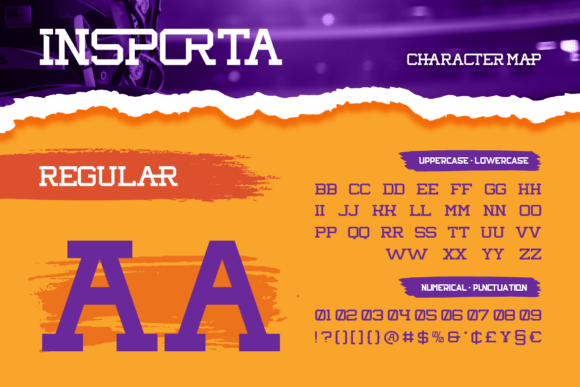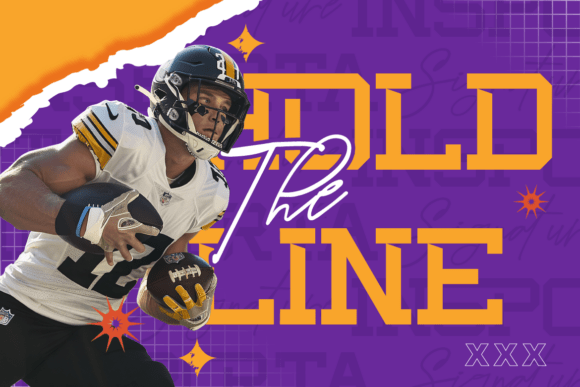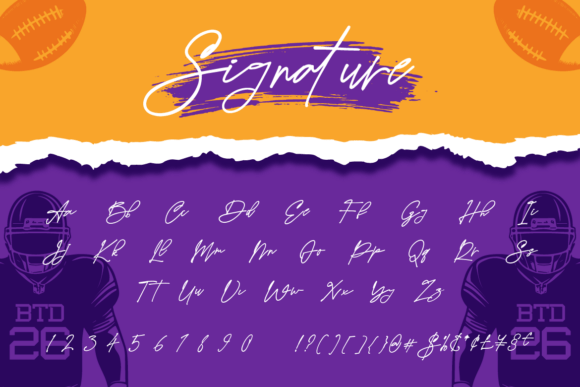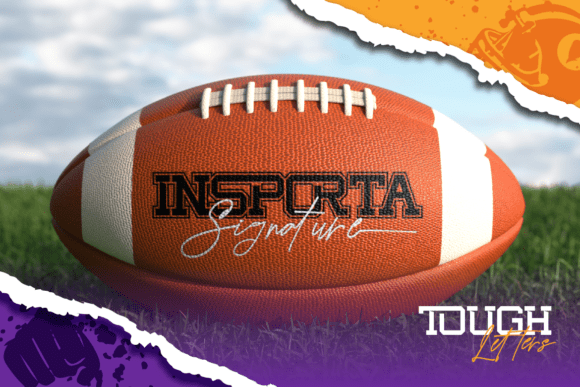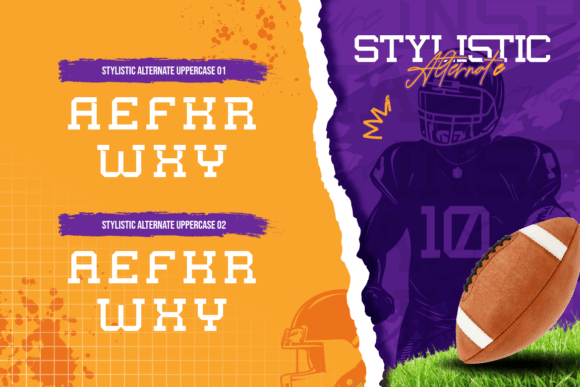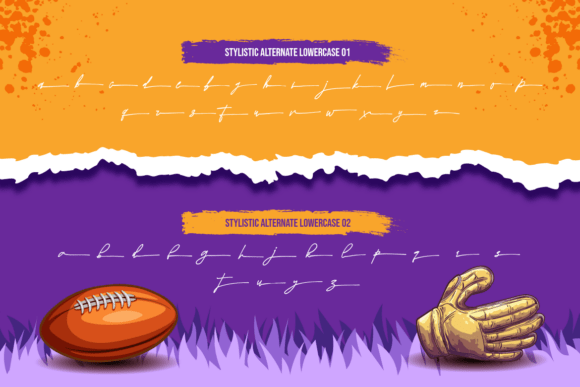
Introduction to Insporta Signature Font
Insporta Signature is a bold and energetic font duo designed to bring the spirit of competition into every design.
This sporty typeface combines a strong all-caps serif font that inspired by college varsity aesthetic with a stylish signature script Perfect for sports branding, athletic posters, team logos, or game day merchandise, Insporta Signature combines modern varsity typeface vibes with a personal, handwritten touch.
Key Features of Insporta Signature Font
Why Choose Insporta Signature Font?
Insporta Signature Font offers exceptional quality and versatility, making it a valuable addition to your design toolkit. Whether you’re creating for personal projects or commercial use, Insporta Signature Font delivers professional results.